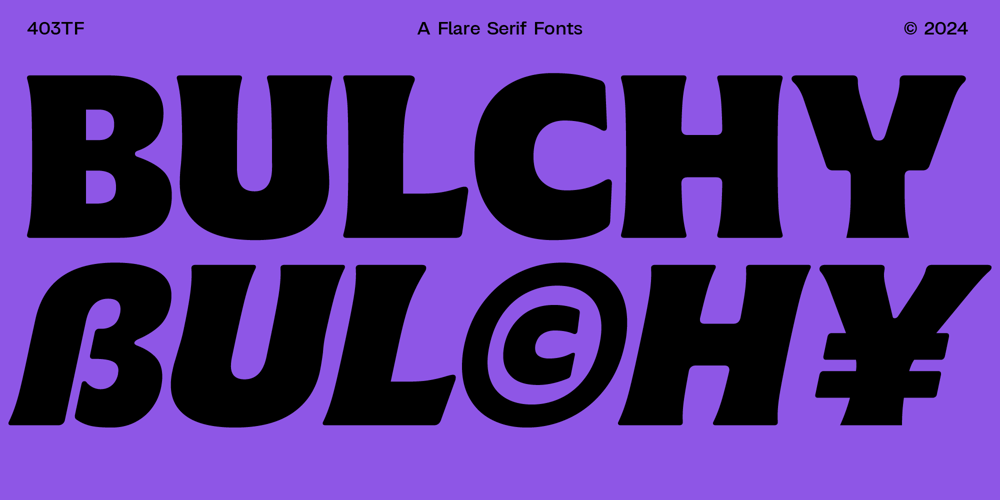
403 Bulchy Font Family was designed by Umar Al Farouq, Jodi El Ghazi, Febri Riansah and published by 403TF. 403 Bulchy contains 2 styles and family package options. 403 Bulchy is a regular and slanted display font that is forceful and expressive. It has a lighthearted and vintage feel, which makes it perfect for attention-grabbing graphics and headlines. It provides great adaptability with compatibility for up to 268 languages and 493 glyphs per style. Fun and individuality are added by the oversized serifs and distinctive character shapes. Bulchy is ideal for posters, event promotions, and dynamic visual compositions because of its many features, which include multilingual support, ligatures, style sets, fractions, arrow symbols, and case-sensitive symbols.